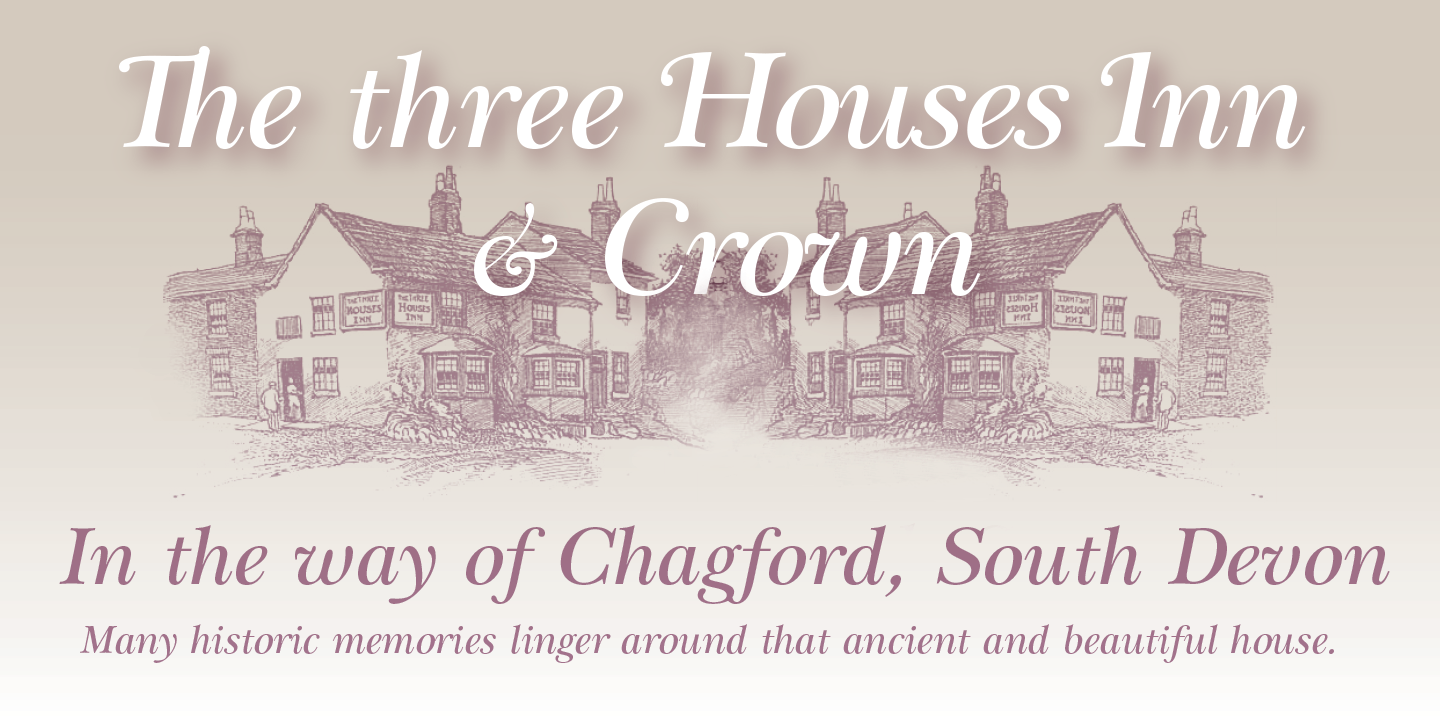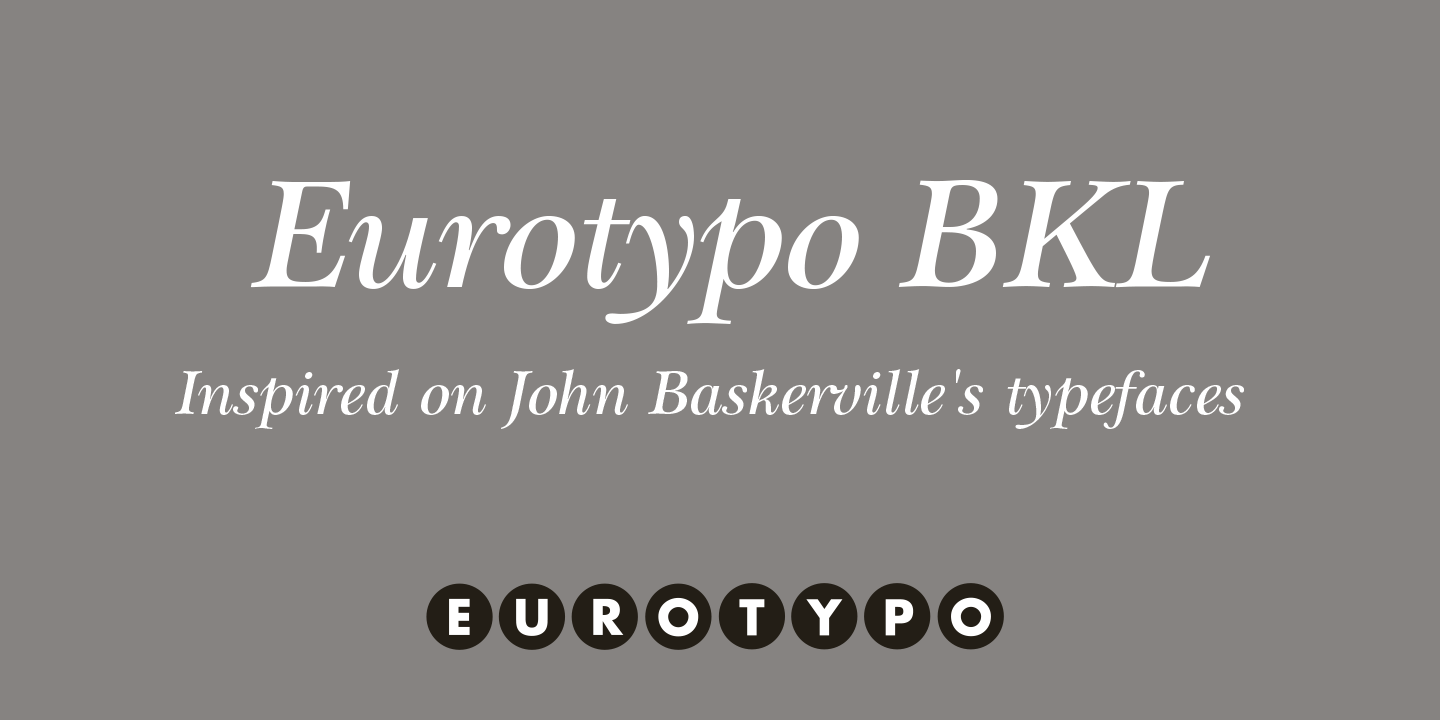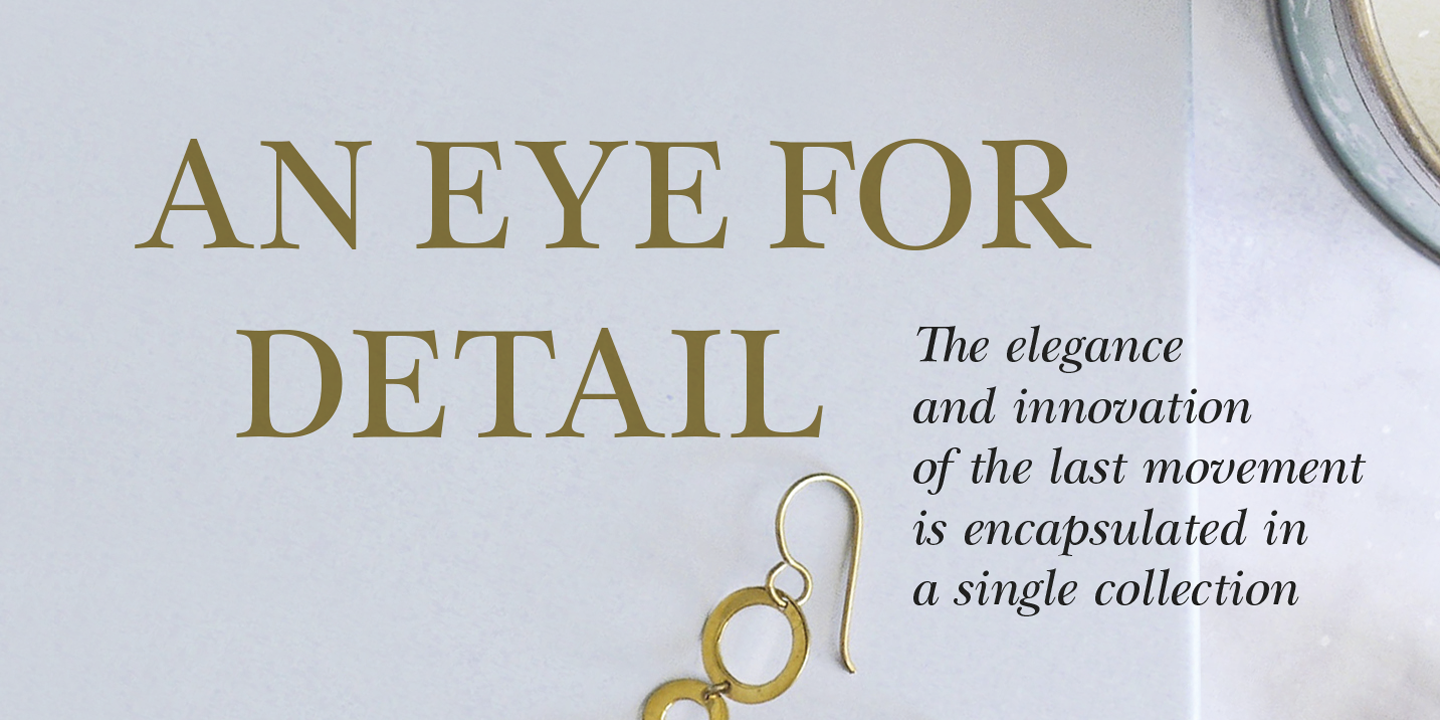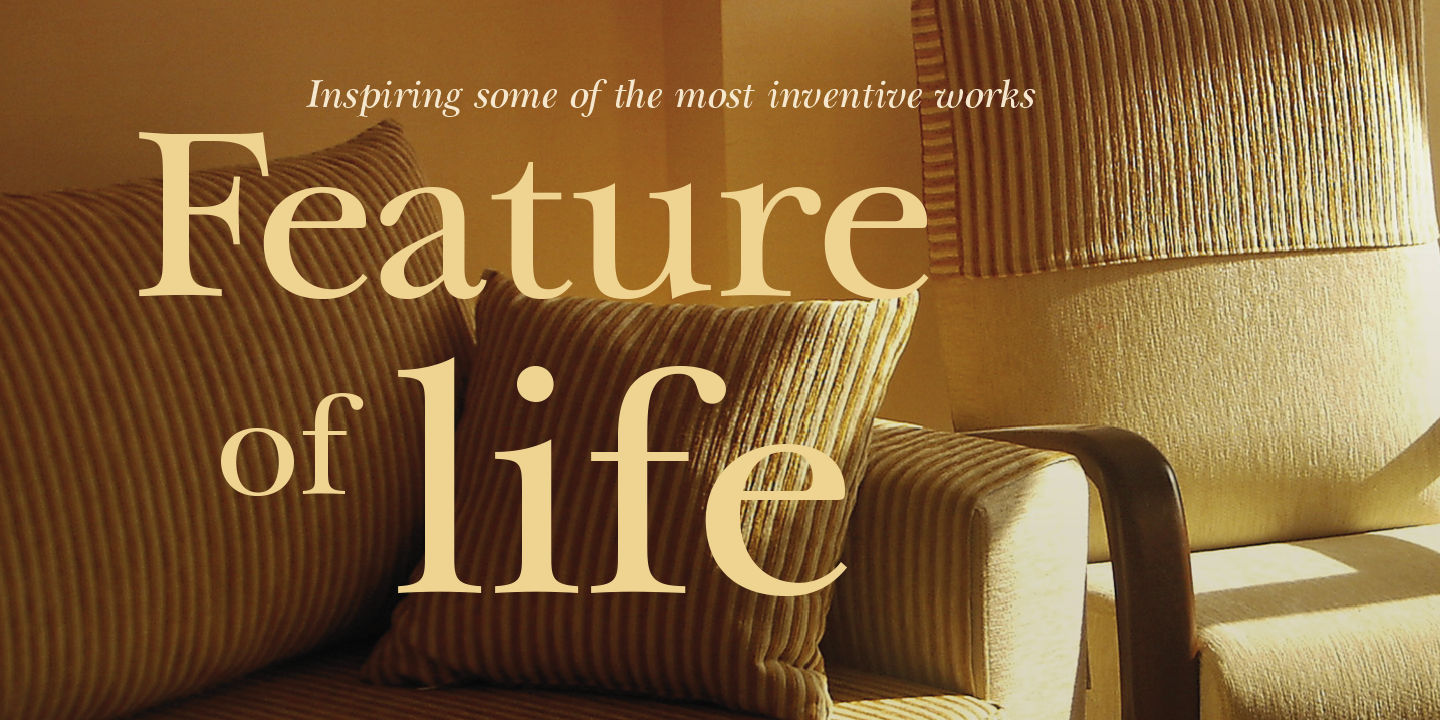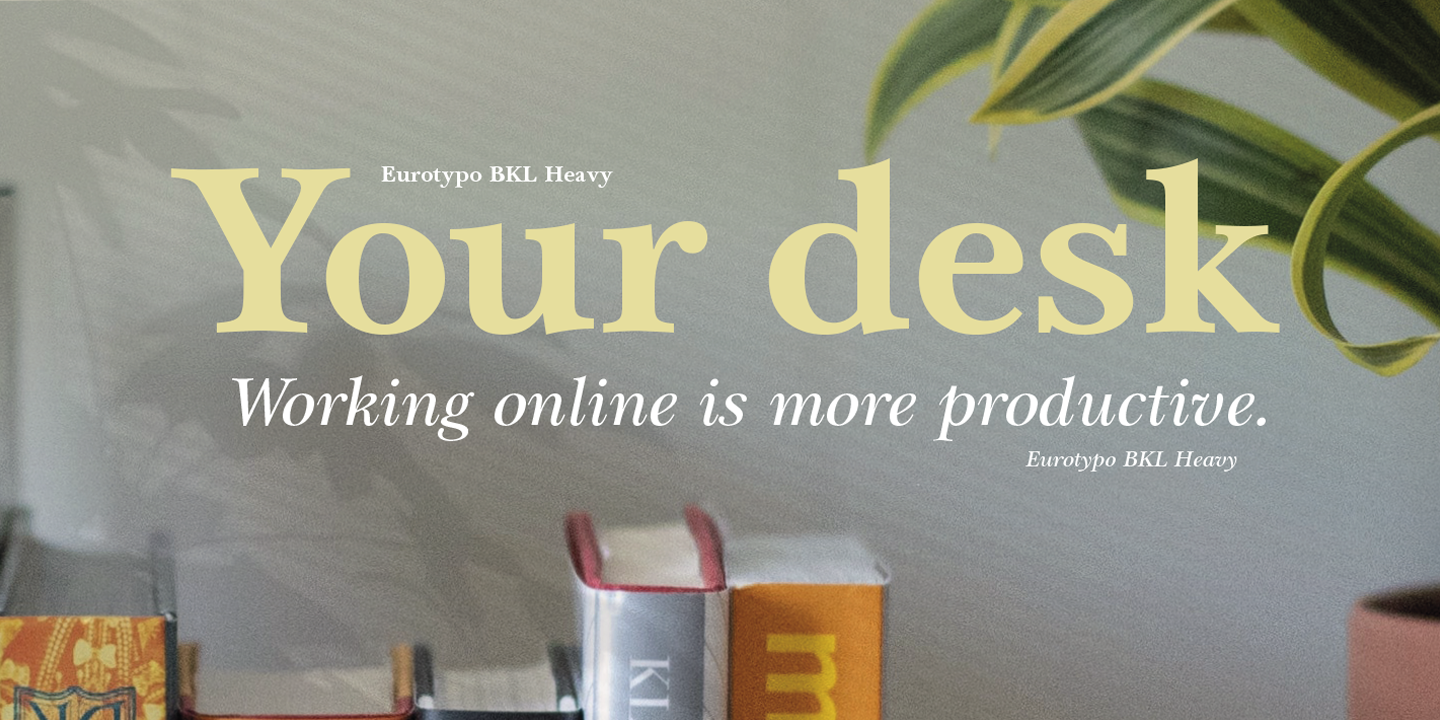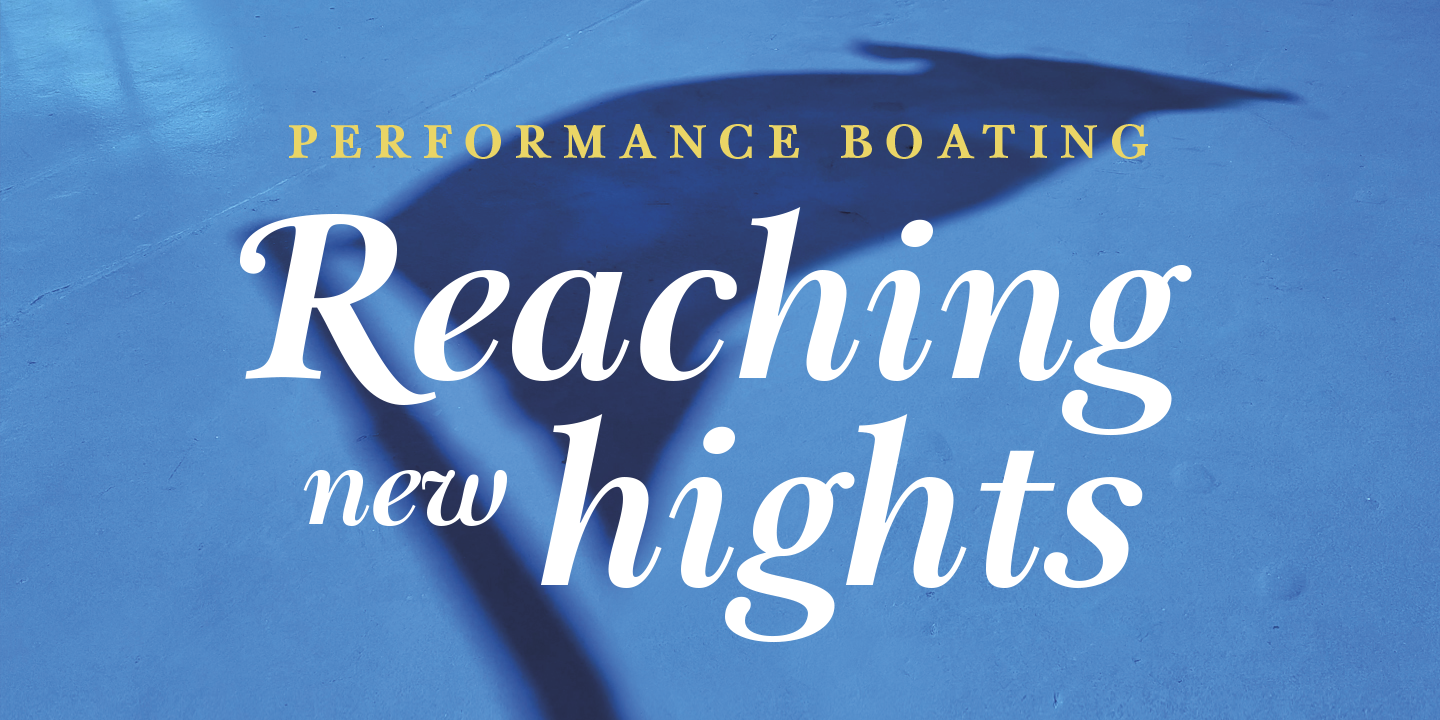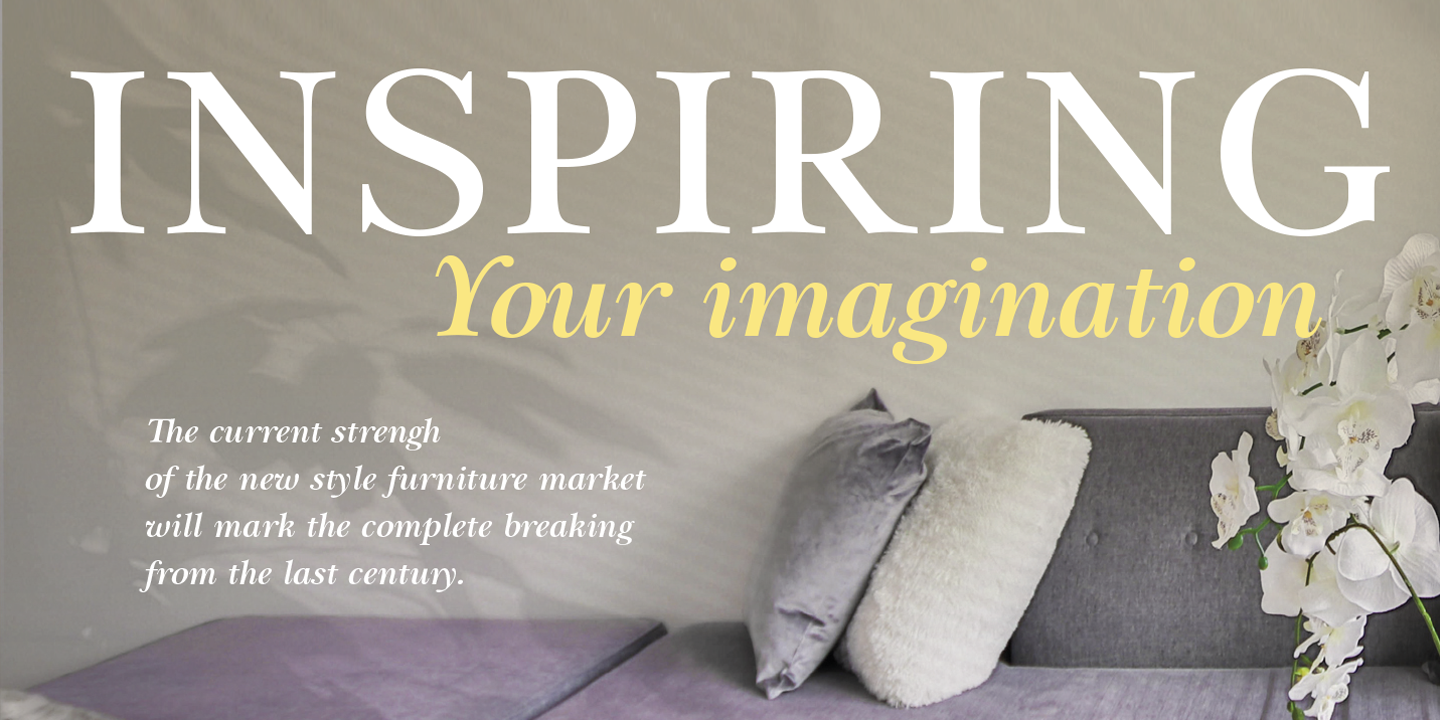
Contemporary Serif Inspired by Baskerville’s Legacy
Eurotypo BKL is a contemporary serif type family inspired by one of the finest achievements in British typography. Rooted in the legacy of John Baskerville, this typeface blends classical elegance with modern digital precision, making it an ideal choice for today’s design needs.
Rather than recreating historical letterforms, Eurotypo BKL captures the essence of Baskerville’s style—its refinement, balance, and clarity—reinterpreted for contemporary use. The result is a type family that feels timeless yet fresh, perfectly suited for both print and screen applications.
Optimized for Legibility and Digital Precision
The design features near-square capital proportions that convey stability and authority, while the lowercase characters are more open and fluid. Shorter ascenders and descenders allow for an enlarged x-height, improving legibility and visual comfort, especially in digital environments. Carefully adjusted spacing and precise kerning ensure a smooth, consistent reading experience across all sizes.
Versatile Applications: Branding, Editorial & Packaging
Thanks to its elegant structure and strong readability, Eurotypo BKL performs beautifully in headlines, editorial design, branding, packaging, and long-form text. Whether used for striking titles or extended body copy, it delivers a sophisticated and professional typographic voice.
John Baskerville (1706–1775) was an English typographer and printer whose work marked a turning point in typographic history. His celebrated 1757 edition of Virgil and his technical innovations in printing, paper, and ink production earned him admiration from figures such as Benjamin Franklin. Baskerville’s typefaces are considered transitional, bridging the gap between Old Style Roman and Modern Roman typography.